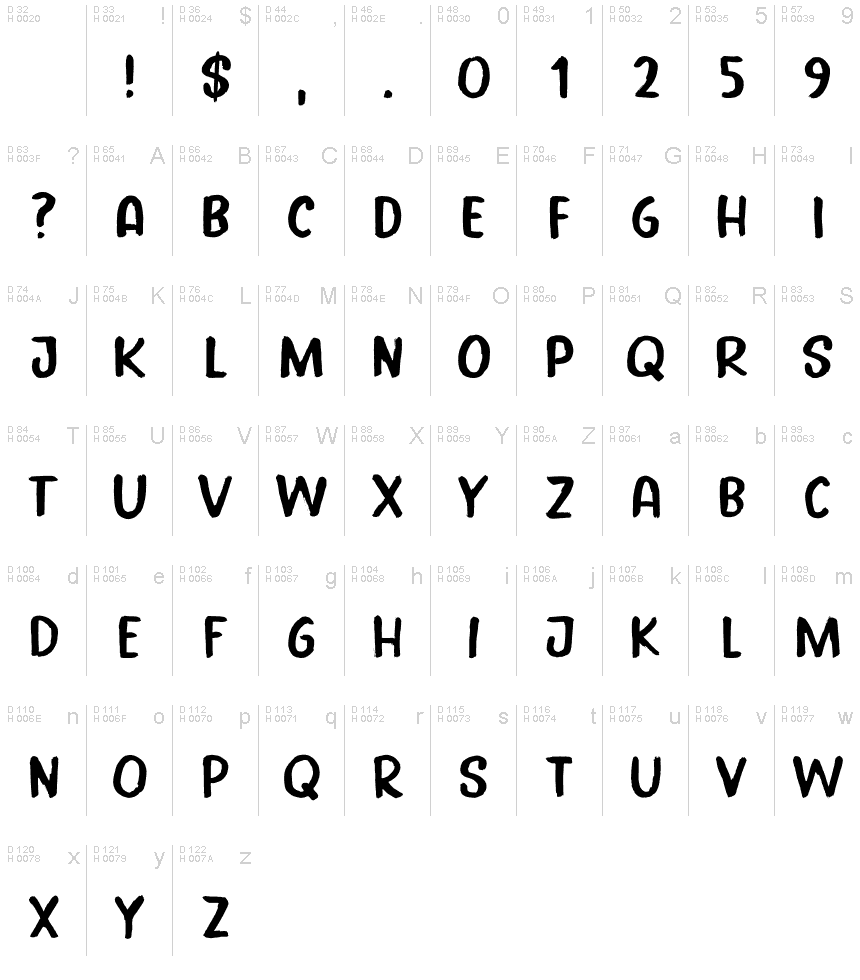
Trollkatt DEMO Regular
Trollkatt is a bold and scary brush font designed by Hanoded, perfect for projects that require a spine-tingling aesthetic. With its rough edges and eerie vibe, this typeface is suitable for horror movie posters, book covers, or even haunted house flyers. The bold weight of the letters adds an extra layer of impact to your designs, ensuring they stand out from the crowd. Whether you're creating spooky invitations or designing bone-chilling t-shirts, Trollkatt has got you covered. Add some fright to your next project with this hair-raising font!